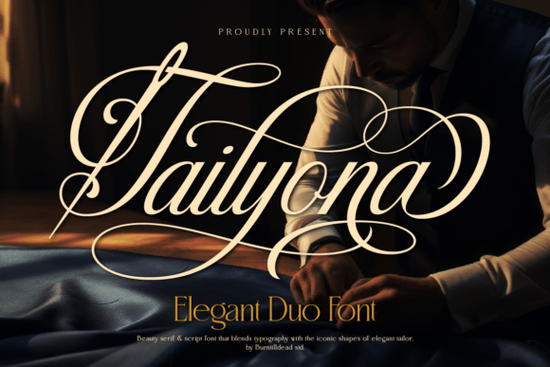
If you're looking for a font that can handle both elegant script and clean serif work, the Tailyona Font is worth a close look. This duo font pairs a flowing calligraphic script with a refined serif, giving you two typefaces that work together beautifully. Whether you're a print-on-demand seller designing product labels or a small business owner crafting a brand identity, this set gives you flexibility without juggling multiple font families.
What makes a duo font like Tailyona useful in real projects?
Having a script and a serif that are designed to complement each other saves time. You don't have to guess whether your headings and body text will clash. Tailyona's script has delicate swashes and curves inspired by classic tailoring it feels personal and artistic. The serif is minimalist and clean, so it remains readable in paragraphs. That contrast works well for fashion editorials, wedding stationery, and luxury packaging. If you're creating social media content for a beauty brand, using the script for headlines and the serif for captions gives a polished look without extra effort.
How does Tailyona compare to other display fonts?
Many display fonts are either purely decorative or purely functional. Tailyona sits in between: the script is expressive but not illegible, and the serif is stylish but not boring. It comes with uppercase, lowercase, numbers, punctuation, alternates, and multilingual support so it's ready for international projects. Files are available in OTF, TTF, and WOFF, which means you can use it in print software, web design, or even inside Canva and similar tools. For sports or casual projects, you might prefer something like the baseball spirit font or a varsity font. But for anything that needs a touch of elegance, Tailyona is a strong choice.
Is this font good for branding and logos?
Yes. The script's flowing letters feel handcrafted, which helps a brand appear approachable and premium. The serif offers a clean counterpart for secondary text, taglines, or small details. Many small businesses use duo fonts like Tailyona to create a consistent look across websites, business cards, and packaging. If you're building a set of go-to fonts for your creative work, adding Tailyona along with something bold from our collection bundle of display fonts gives you options for different client needs.
What about wedding invitations or stationery?
Absolutely. The swashes and delicate curves make every word feel special. The script works beautifully for the couple's names, while the serif handles details like date, venue, and directions. Since the font includes alternates, you can customize letterforms for a more unique look. It's also a solid pick for save-the-dates, thank-you cards, and menus. If you also need a modern display font for a separate project, the marshal font gives a different, bolder style.
What should you check before using Tailyona in your project?
- Both styles included? Yes script and serif come in regular versions.
- Language support: Multilingual capabilities mean it covers many Western European languages.
- Alternates and swashes: You get extra characters for creative flair; check the Tailyona Characters Map to see all options.